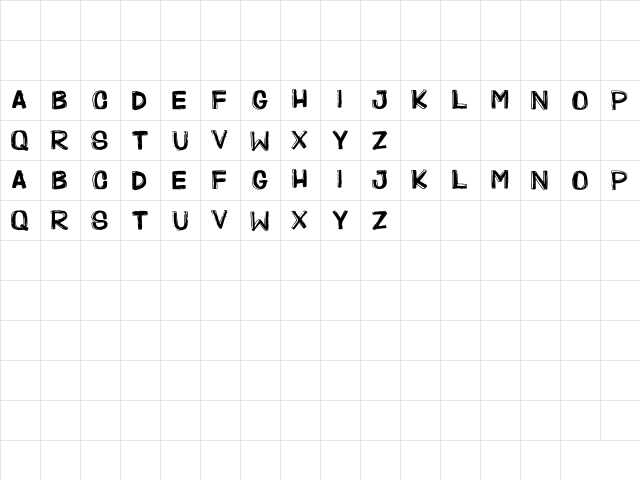
KPK Project Regular
| Designer | Farid Aulia Rahman |
Design Context for KPK Project Typeface
KPK Project is a composed and adaptable typeface that performs quietly and consistently across a wide range of design contexts.